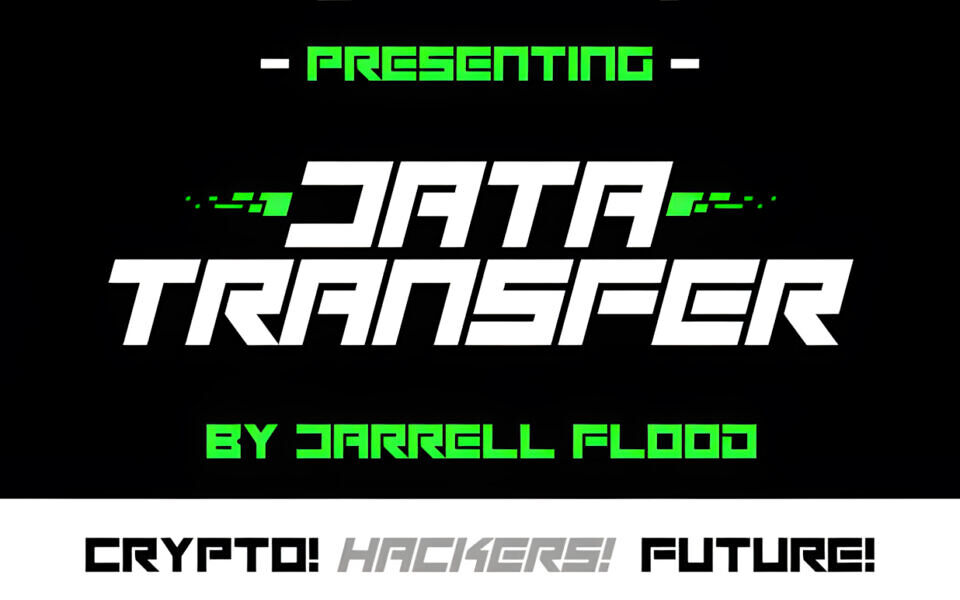
Data Transfer Font
Data Transfer is a futuristic display font in a slick, stylish, square style. Perfect for Science Fiction and adventure projects, high-tech presentations, and many other designs!